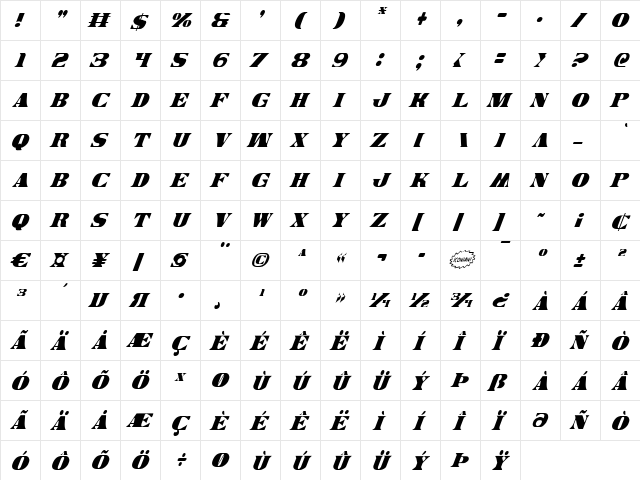
Legal Tender Condensed Italic Condensed Italic
Design Context for Legal Tender Condensed Italic Typeface
Legal Tender Condensed Italic offers clean, dependable letterforms without strong stylistic allegiance, making it a practical choice for designers who need flexibility. The slanted form adds forward momentum and visual energy. Its narrow stance lets it pack a punch even in space-constrained designs.
Pro Tip: Use Legal Tender Condensed Italic for emphasis, pull quotes, and subheadings where its slanted energy can add rhythm to the layout.